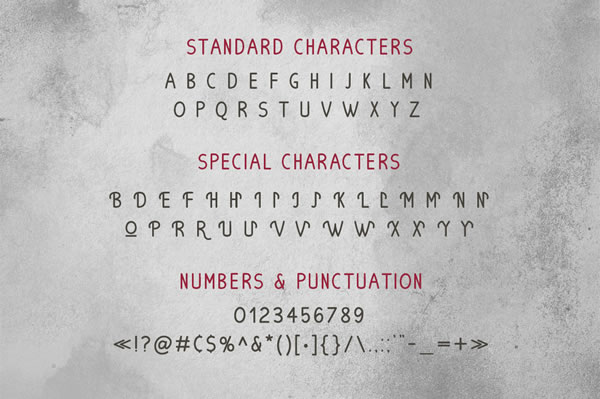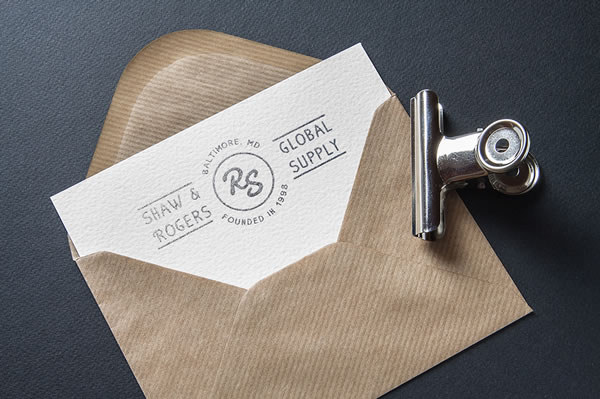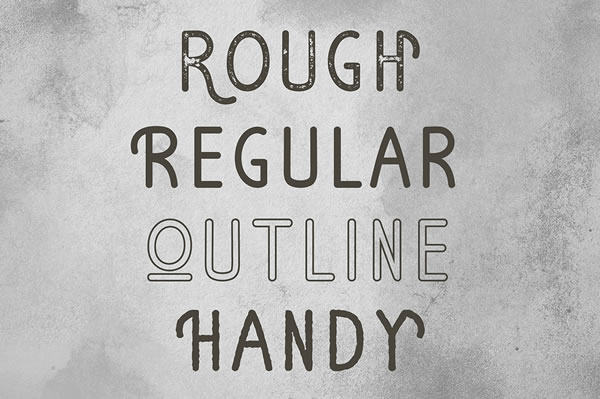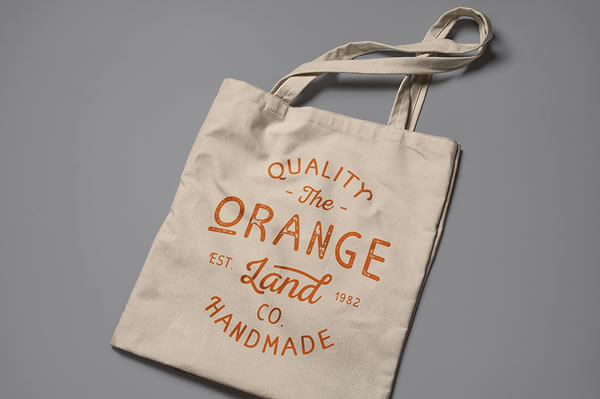
Introducing Bronson Font: A Rough yet Versatile Typeface for Designers and Crafters
In the world of typography, fonts play a crucial role in conveying messages, evoking emotions, and setting the tone for a brand or project. For designers and crafters looking for a unique and versatile typeface, Bronson Font is an excellent choice. This rough font comes in four distinct styles: Bronson Regular, Bronson Outline, Bronson Rough, and Bronson Handy, offering a range of creative possibilities.
What is Bronson Font?
Bronson Font is a carefully crafted typeface designed to add a touch of ruggedness and character to any design project. Its rough texture and distinctive feel make it perfect for use in various applications, from branding and advertising to crafting and DIY projects. Whether you’re looking to create a bold statement or add a subtle touch of personality, Bronson Font has got you covered.
The Four Styles of Bronson Font
One of the standout features of Bronson Font is its versatility, thanks to its four unique styles:
- Bronson Regular: The foundation of the Bronson Font family, this style offers a balanced and legible rough font suitable for body text, headings, and more.
- Bronson Outline: For designs that require a bit more flair, Bronson Outline provides a stylish and elegant alternative, perfect for highlighting key information or adding visual interest.
- Bronson Rough: As the name suggests, this style takes the roughness of Bronson Font to the next level, offering a distressed look that’s ideal for creating bold, eye-catching designs.
- Bronson Handy: The most versatile of the bunch, Bronson Handy combines the roughness of Bronson Font with a more refined, usable design, making it perfect for a wide range of applications.
Why Choose Bronson Font?
So, what sets Bronson Font apart from other typefaces on the market? Here are just a few reasons why designers and crafters love working with Bronson:
- Unique Character: Bronson Font’s rough texture and distinctive feel give it a personality that’s hard to find in more traditional typefaces.
- Versatility: With four styles to choose from, Bronson Font can be used in a wide range of design projects, from rustic and outdoorsy to modern and sleek.
- Legibility: Despite its rough appearance, Bronson Font remains highly legible, making it suitable for use in body text as well as headings.
- Easy to Use: Bronson Font is designed to be user-friendly, with a simple and intuitive design that makes it easy to incorporate into your workflow.
Using Bronson Font in Your Design Projects
So, how can you start using Bronson Font in your design projects? Here are a few ideas to get you started:
- Branding and Logo Design: Use Bronson Font to create a bold and memorable brand identity that stands out from the crowd.
- DIY Crafts: Add a personal touch to your DIY crafts, such as handmade cards, gift tags, and more, with Bronson Font’s unique character.
- Advertising and Marketing: Use Bronson Font to create eye-catching ads and marketing materials that grab attention and leave a lasting impression.
- Web Design: Incorporate Bronson Font into your web design projects to add a touch of personality and whimsy to your website or blog.
In conclusion, Bronson Font is a versatile and unique typeface that’s perfect for designers and crafters looking to add a touch of roughness and character to their design projects. With its four distinct styles, Bronson Font offers a range of creative possibilities, from bold and rugged to refined and elegant. Whether you’re working on a branding project, DIY craft, or web design, Bronson Font is an excellent choice.